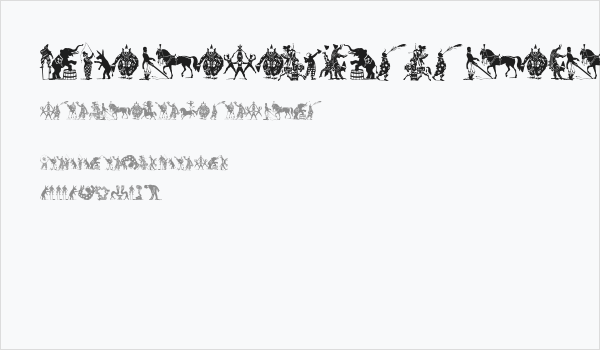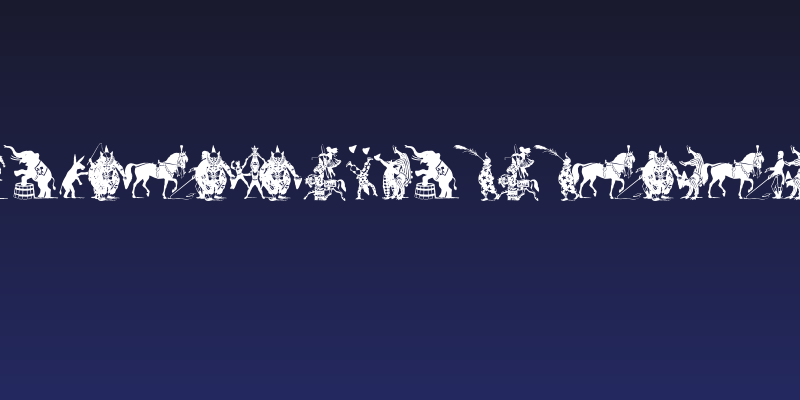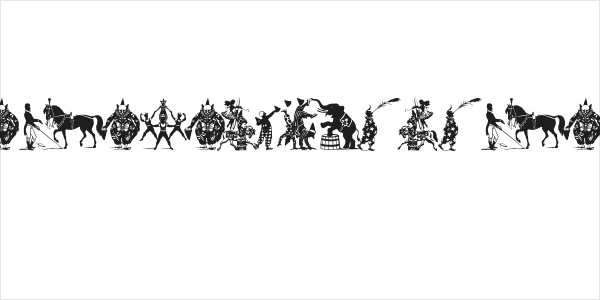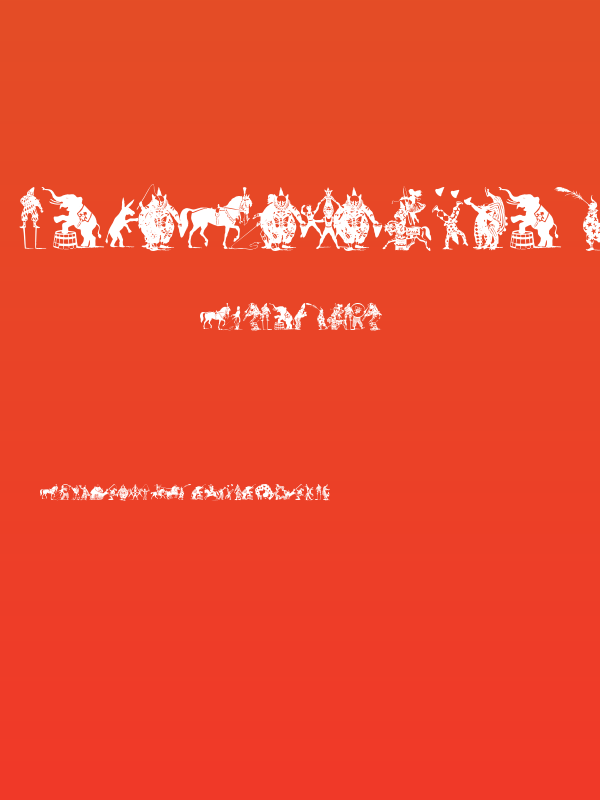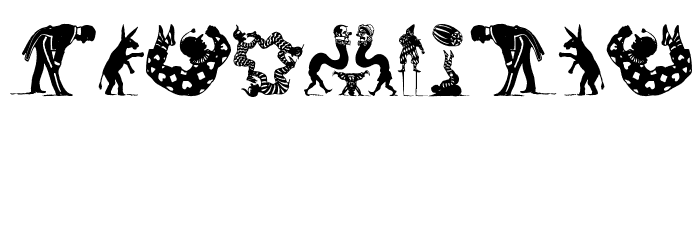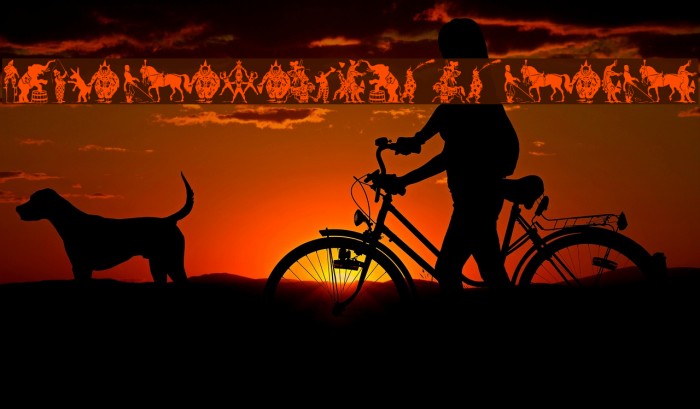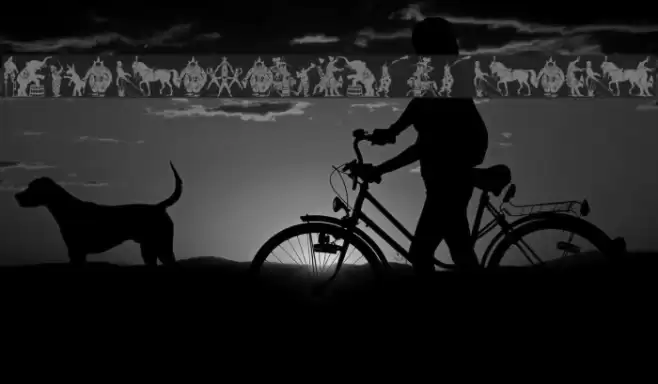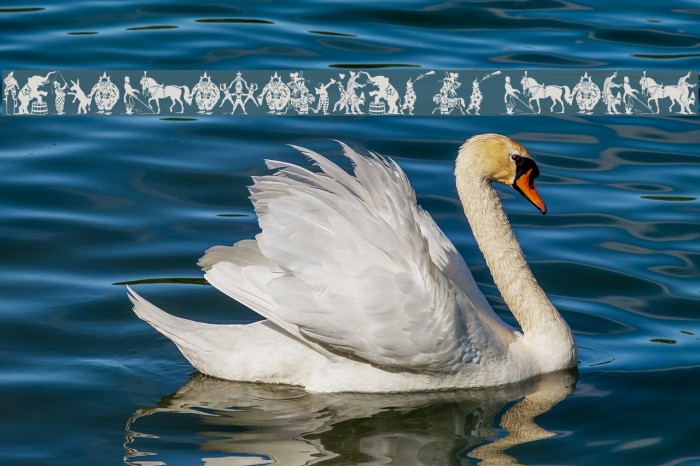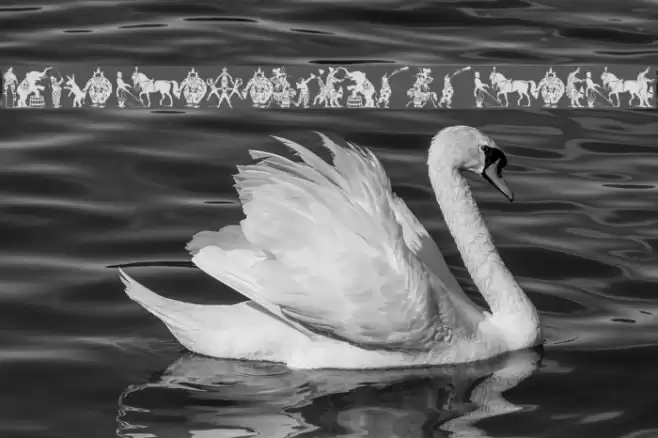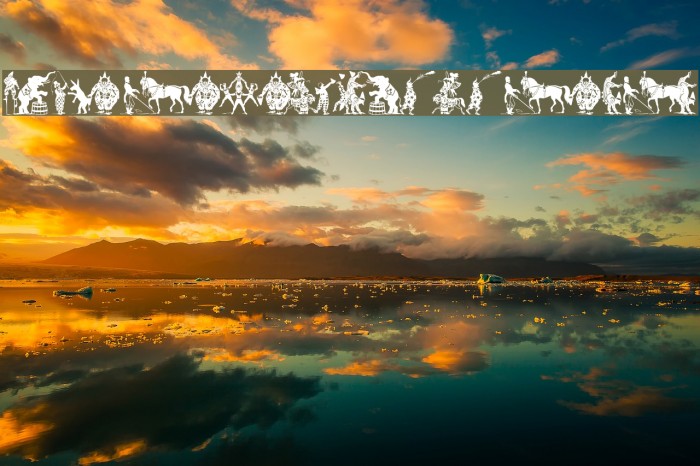
PoliticiansOrArtists Font
PoliticiansOrArtists Description
A highly decorative and whimsical font composed of intricate silhouettes of circus performers, animals, and entertainers forming each character. The letterforms are constructed from detailed illustrations, making each glyph unique and playful, with a strong narrative and visual complexity.
| Overall Style | Decorative, Whimsical, Playful |
| Use Case | Headlines, Posters, Logos, Themed Graphics |
| Proposed Projects | Posters, event invitations, children’s books, themed branding, editorial illustrations, creative packaging. |